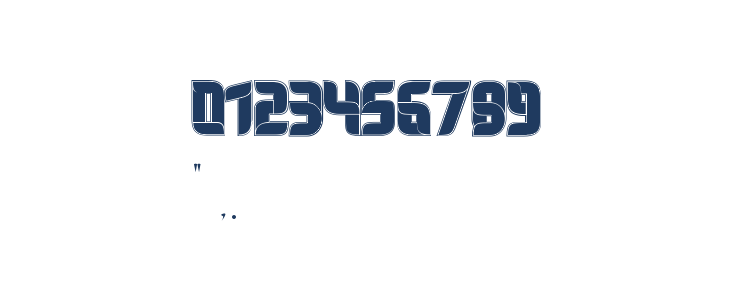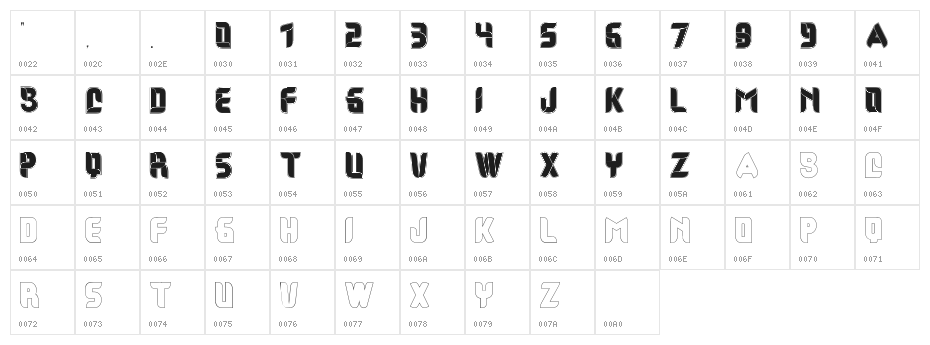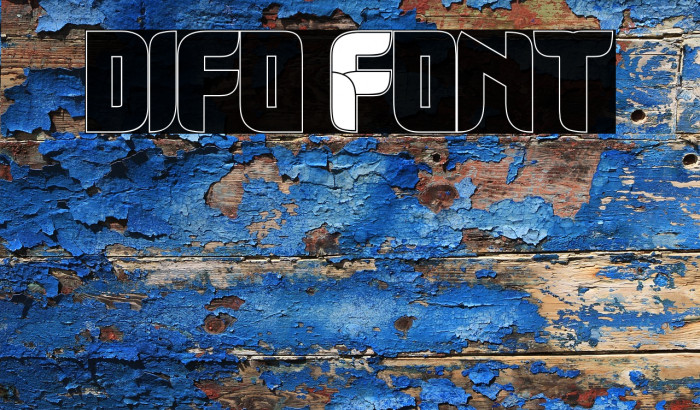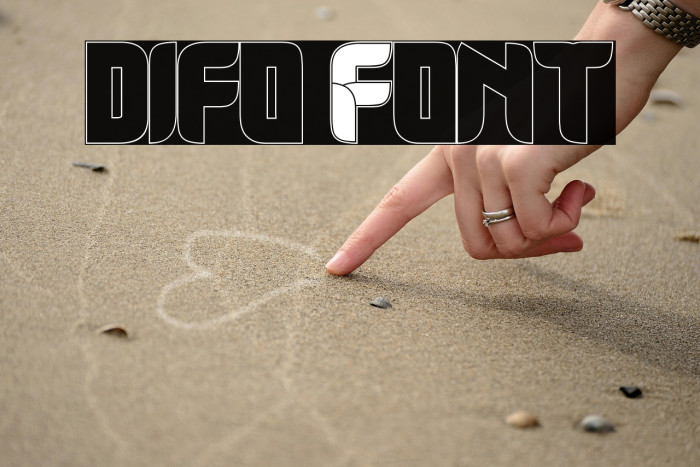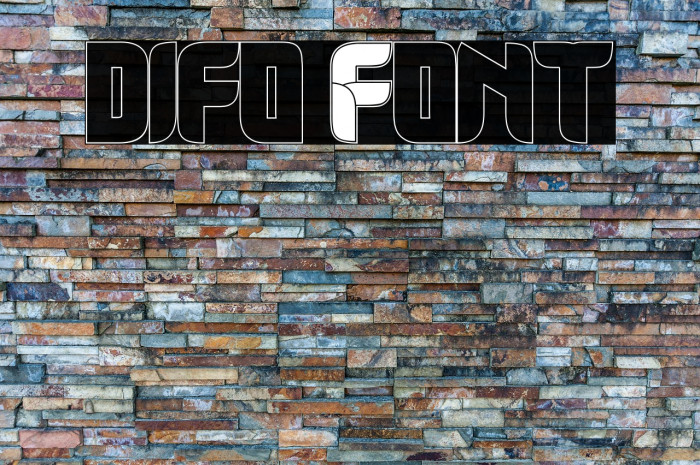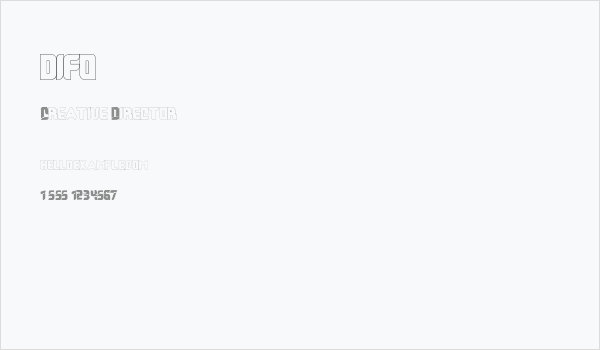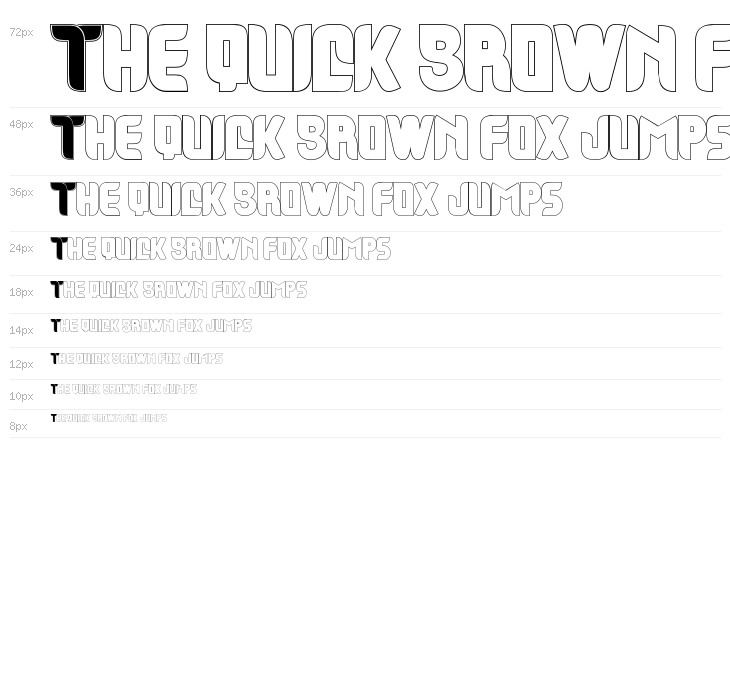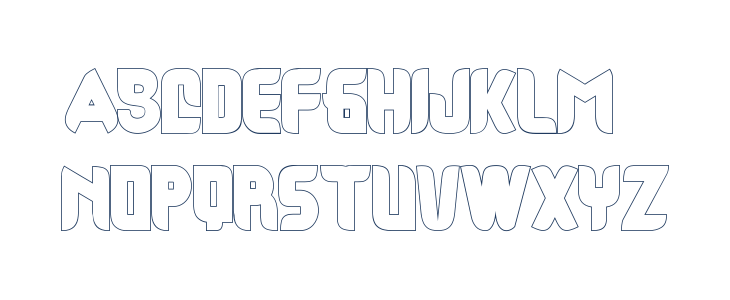
difo Font
difo Description
This font features a bold and futuristic design with a distinctive geometric style. The characters are constructed with thick, block-like forms that give a sense of strength and modernity. The uppercase letters are particularly striking, with sharp angles and a sense of movement. The numbers follow a similar design, maintaining the bold and dynamic aesthetic. The font includes a set of punctuation marks that complement the overall style. The outline version of the font adds versatility, offering a lighter, more open feel while retaining the geometric structure. This font is ideal for projects that require a strong visual impact and a contemporary look.
| Proposed Projects | Ideal for branding, posters, video game graphics, and futuristic-themed designs. |